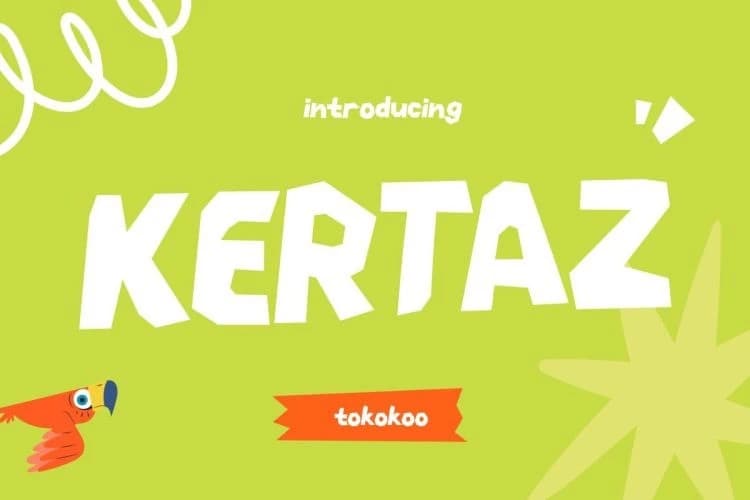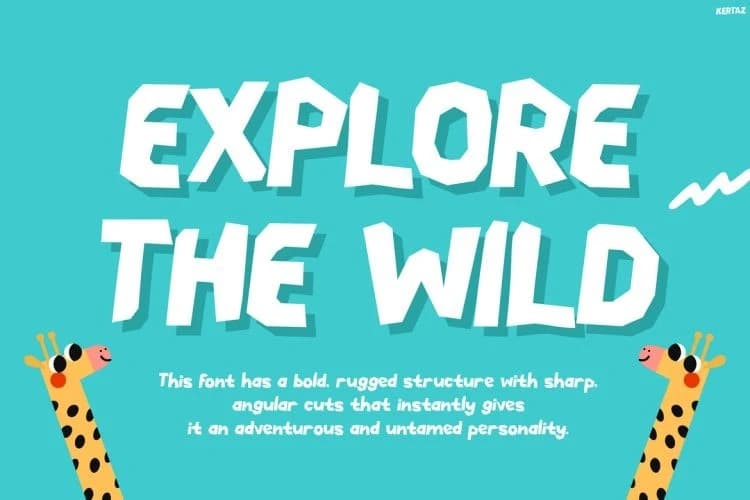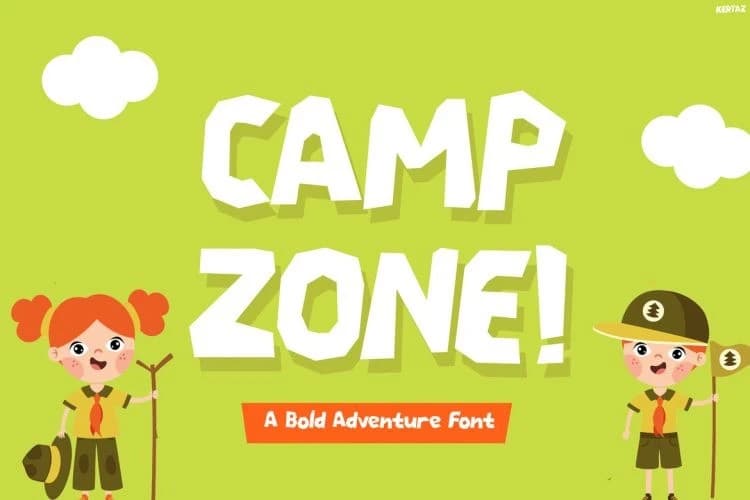
Kertaz Playful Font
Kertaz Playful Font is a bold and adventurous typeface designed to bring the spirit of exploration into every design. At first glance, its sharp-edged, slightly irregular shapes create a dynamic and energetic look. Moreover, the handcrafted style gives it a raw